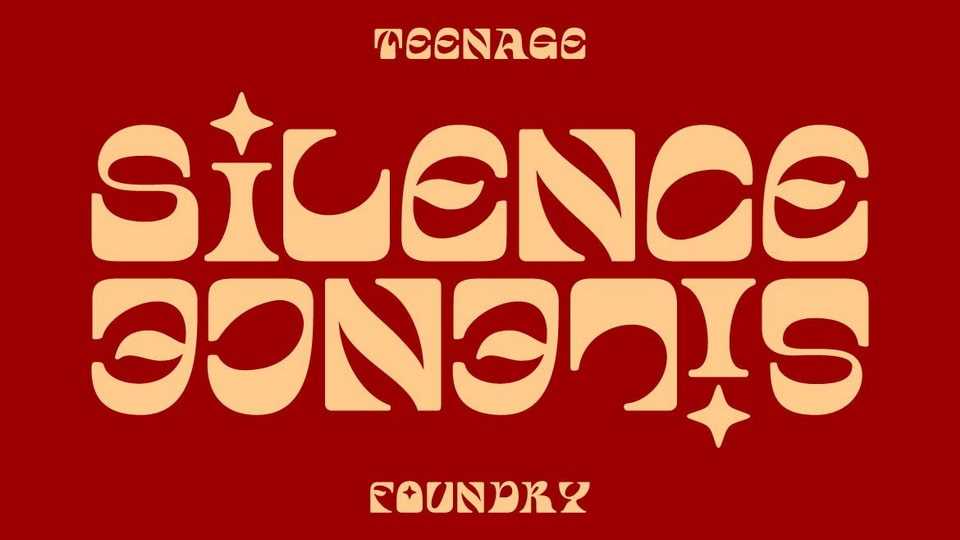
Download TF Silence font, an awesome bold display typeface with a playful retro vibe. Suitable to be applied to headlines, clothing designs, posters, logos etc.
Designer: Teenage Foundry